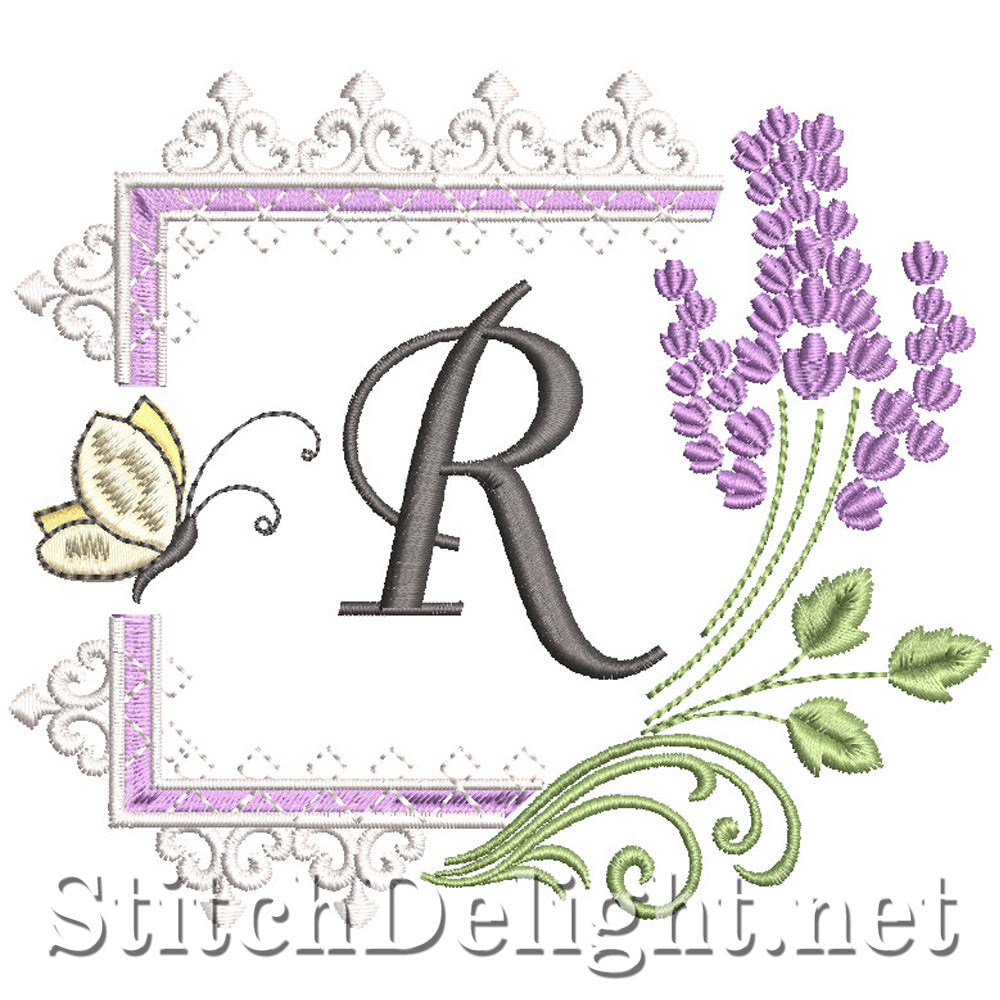
SDS1253 Lavender and Lace Font R
Single Letter - Beautiful floral frame with stylish letters, files include a 4x4 and 5x7 version of each letter - 4x4 hoop size is 33.73x3.24 inch (StitchCount around 9750 stitches) and 5x7 hoop size is 4.93x4.29 inch (12710 stitches)